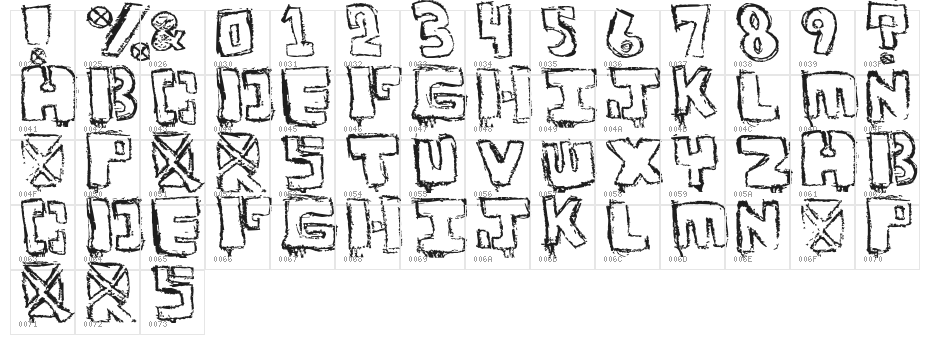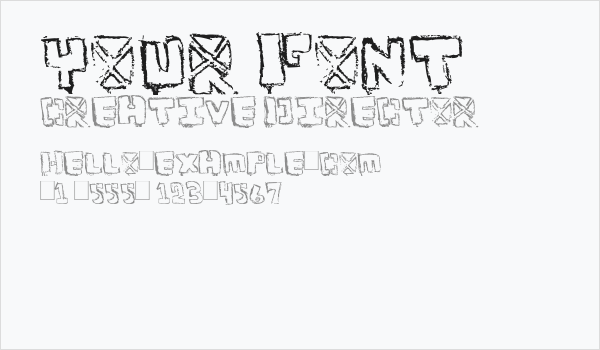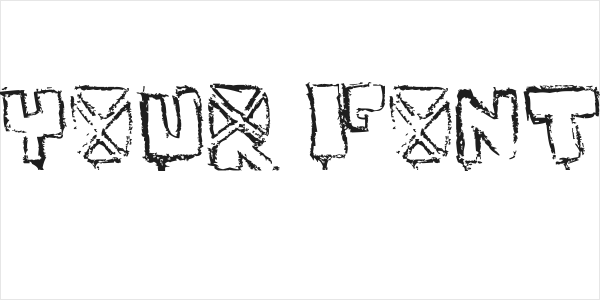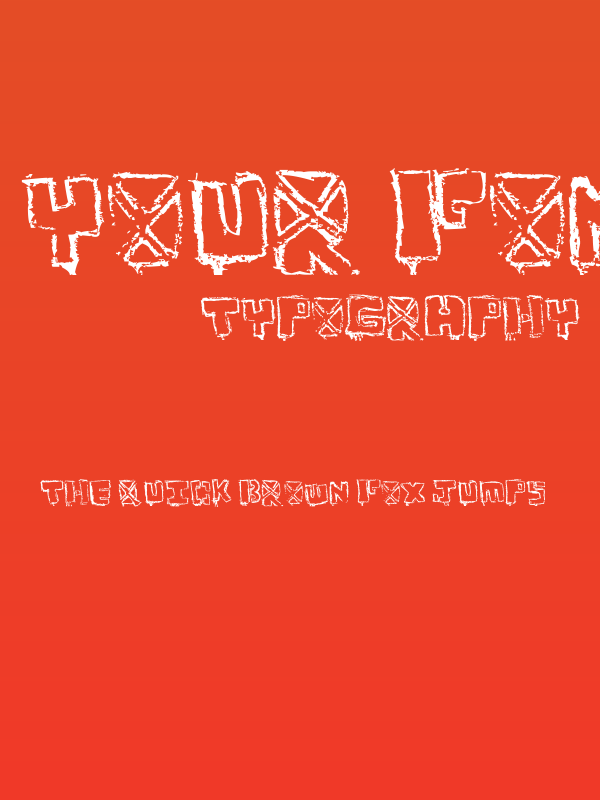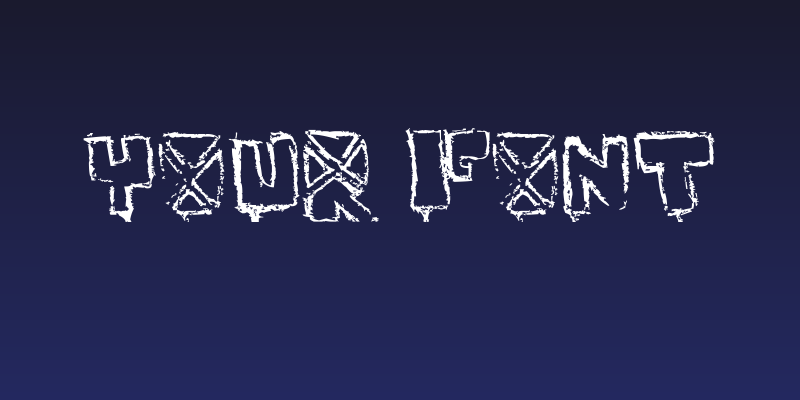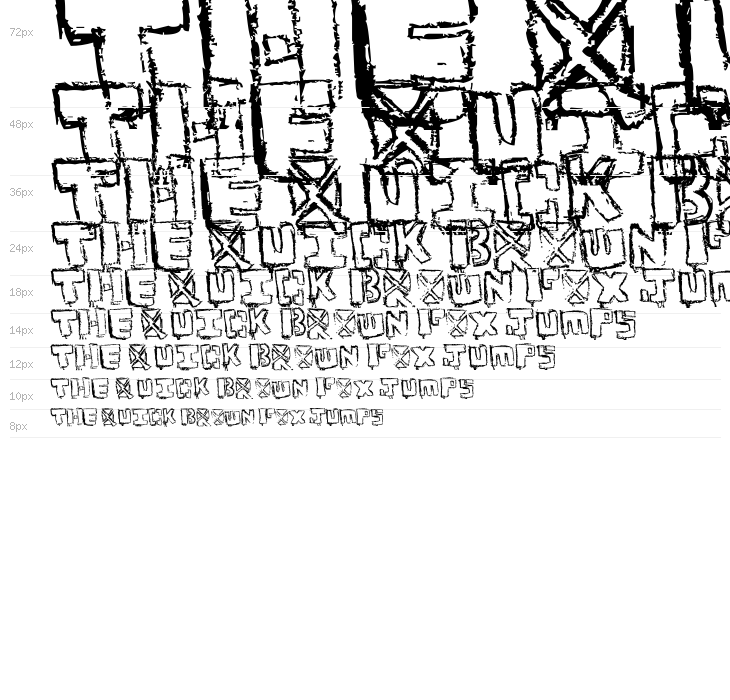
Your Font Font
Your Font Description
This font features a rugged, distressed style with a hand-drawn appearance. The characters are bold and have a rough, textured edge, giving them a grunge-like aesthetic. The uppercase and lowercase letters maintain a consistent design, with each character appearing as if it has been sketched with a heavy hand. The numbers and special characters follow the same style, ensuring uniformity across all elements. This font's unique, edgy look makes it stand out, perfect for projects that require a bold statement.
| Overall Style | Grunge, Edgy, Hand-drawn |
| Proposed Projects | Ideal for album covers, posters, streetwear branding, or any design needing a bold, edgy look. |